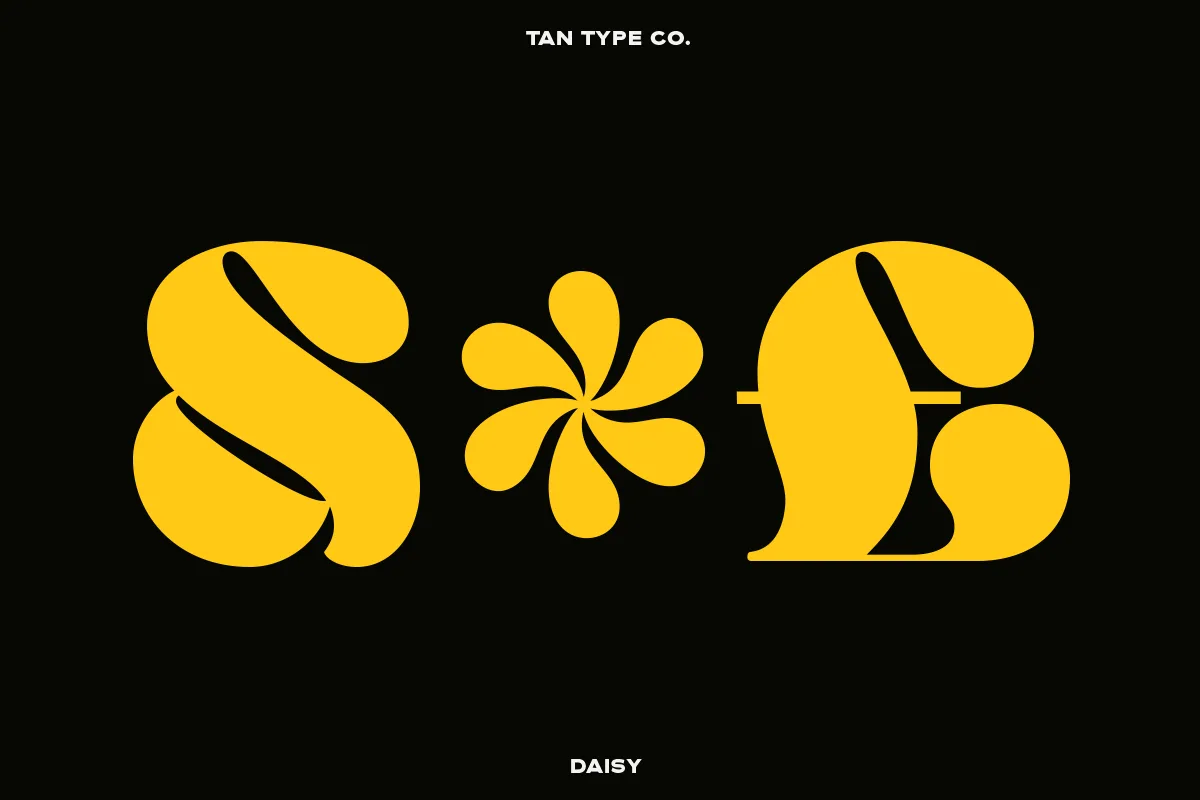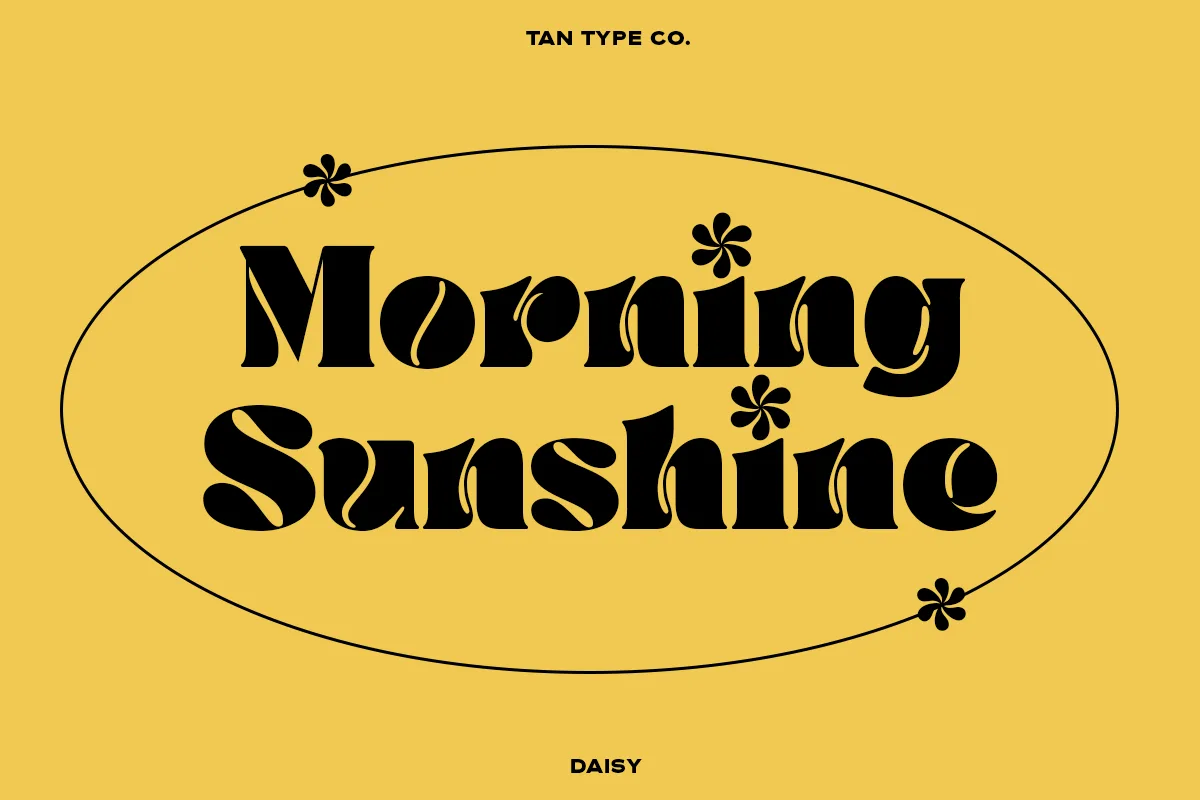
TAN – DAISY is a retro display face from TanType, released in September 2021 and still one of the studio’s most recognisable designs. It is bold, thick and unapologetically seventies — rounded terminals, tight counters, letterforms that swell to fill their space. Quirky and groovy is exactly the intent, and it is a font that does one job extremely well rather than trying to be flexible.
What you get
Where it works — and where it does not
Thick retro display faces earn their keep on posters, record sleeves, social media graphics, streetwear and any branding aiming at a seventies or nineties revival mood. Set it large; the charm is in the shapes, and the shapes disappear below about 24px where the tight counters start to fill in. It is a poor choice for body copy, for long headlines, and for anything that needs to feel neutral or corporate — this is a font with a strong accent, and it will speak louder than your copy if you let it.
How many weights does TAN – DAISY have?
What is TAN – DAISY best used for?
Posters, social media graphics, record sleeves, streetwear and retro-leaning branding, set at display size. It is not suitable for body text or small sizes, where the tight counters begin to close up.